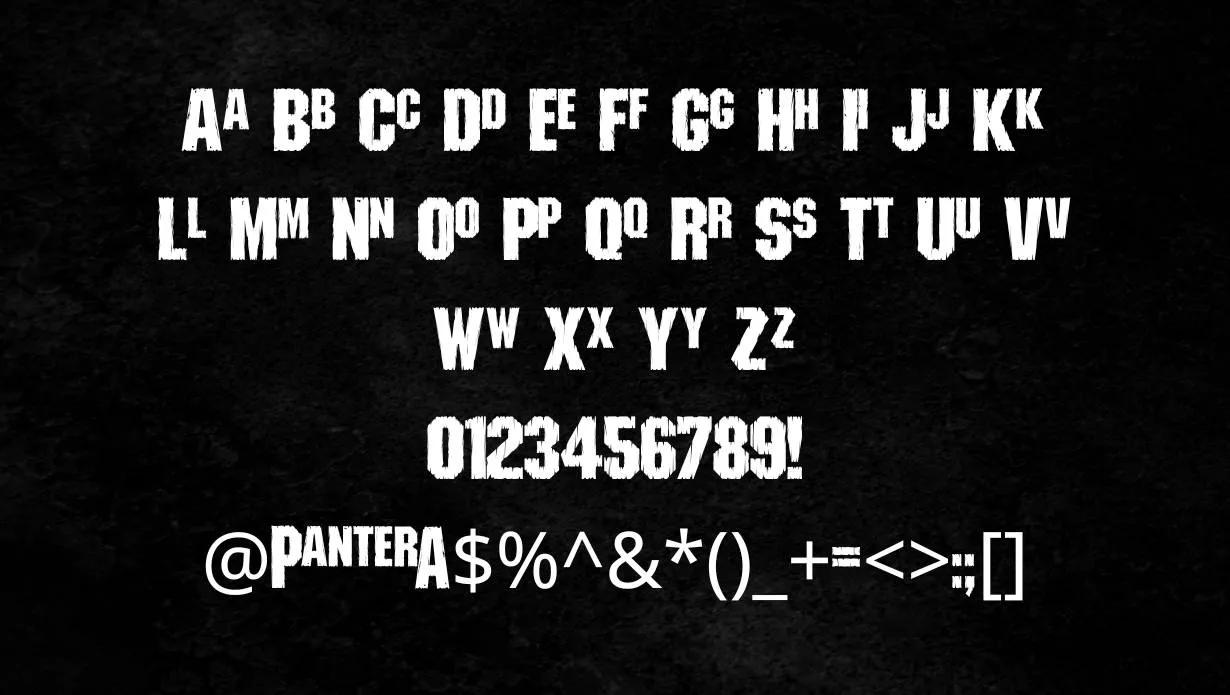
Pantera Font was used in a famous American music band named Pantera. This font was seen on the cover page of their album “Cowboys From Hell” in the 1990s. This is a modern and stylish Display Font designed by a famous font designer P. Reid. It has a rough and tough texture which consists of only uppercase letters, numerals, special characters, and Cyrillic language support.
Usage of Pantera Font
Pantera font went viral after being used in the band’s famous album “Cowboys from Hell”. Many movie makers prefer this font to use in their action movie titles.
Pantera Font
Is Pantera Font useful for writing cartoon / animated series titles?
Yes, this font is suitable for writing cartoon series titles. Many movie makers also prefer this font to design their action movie titles.